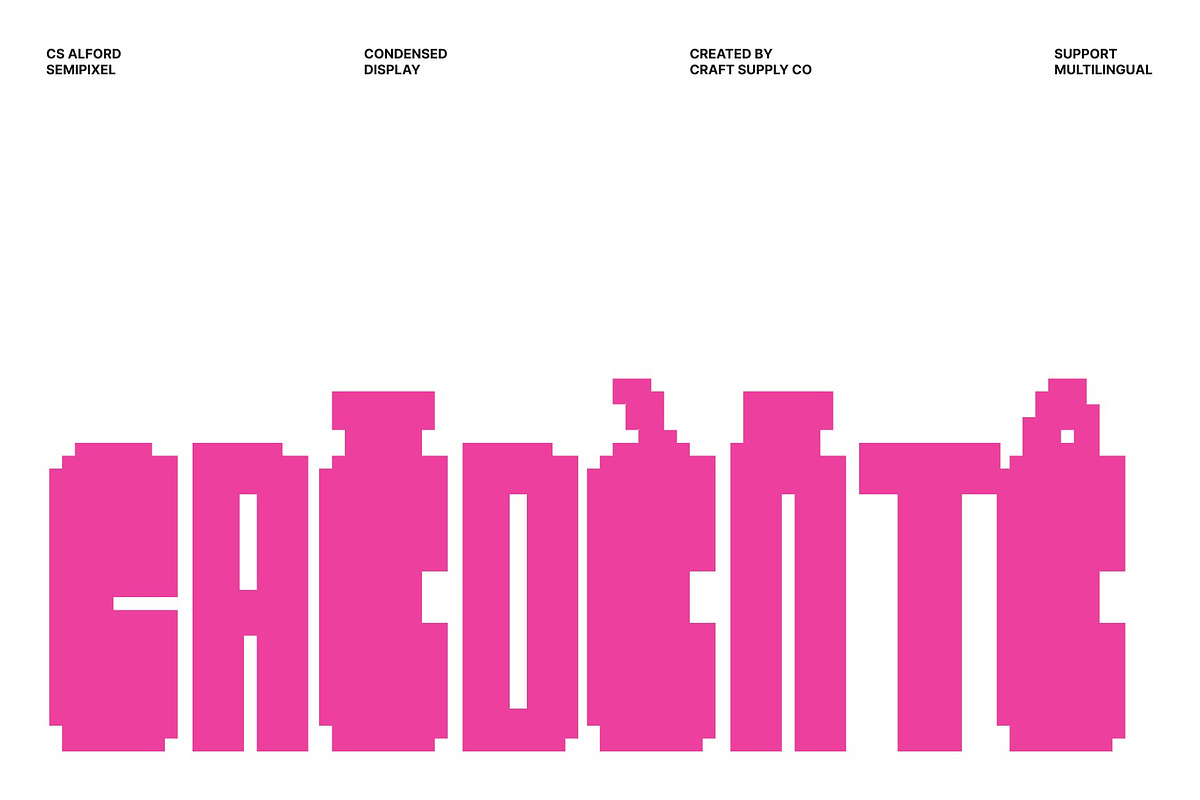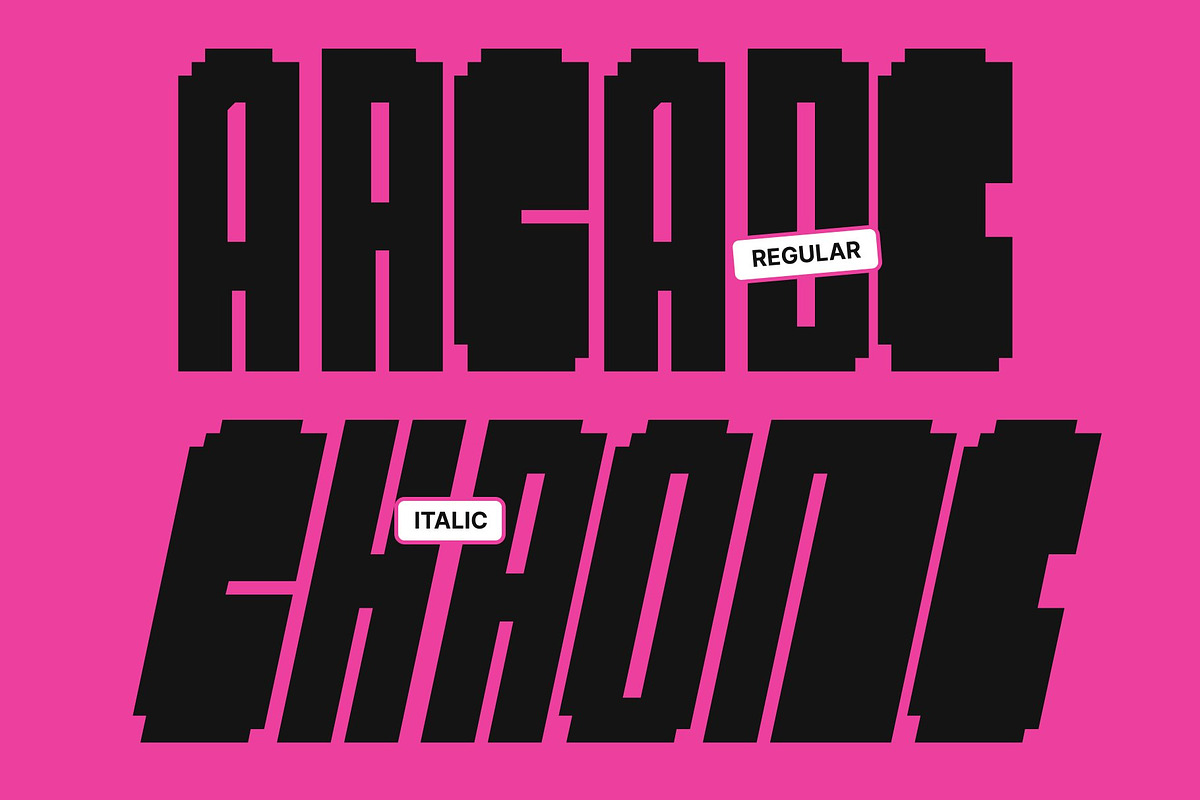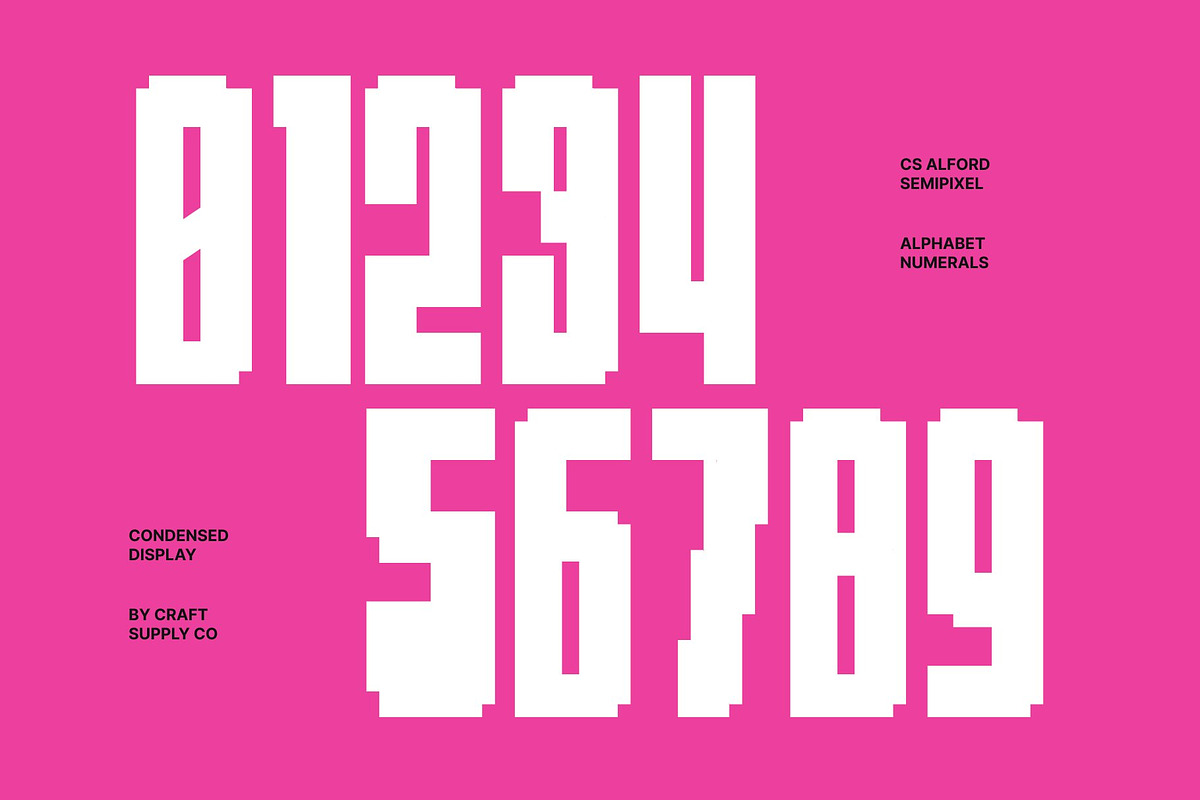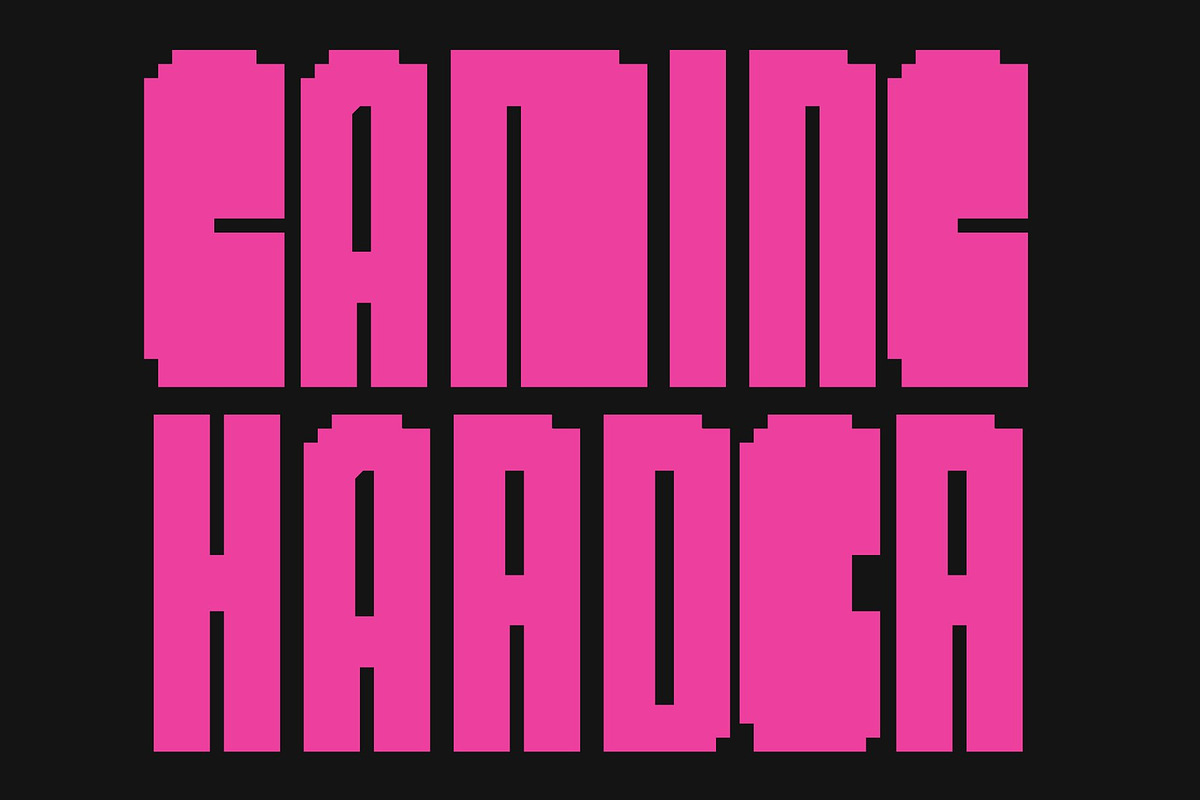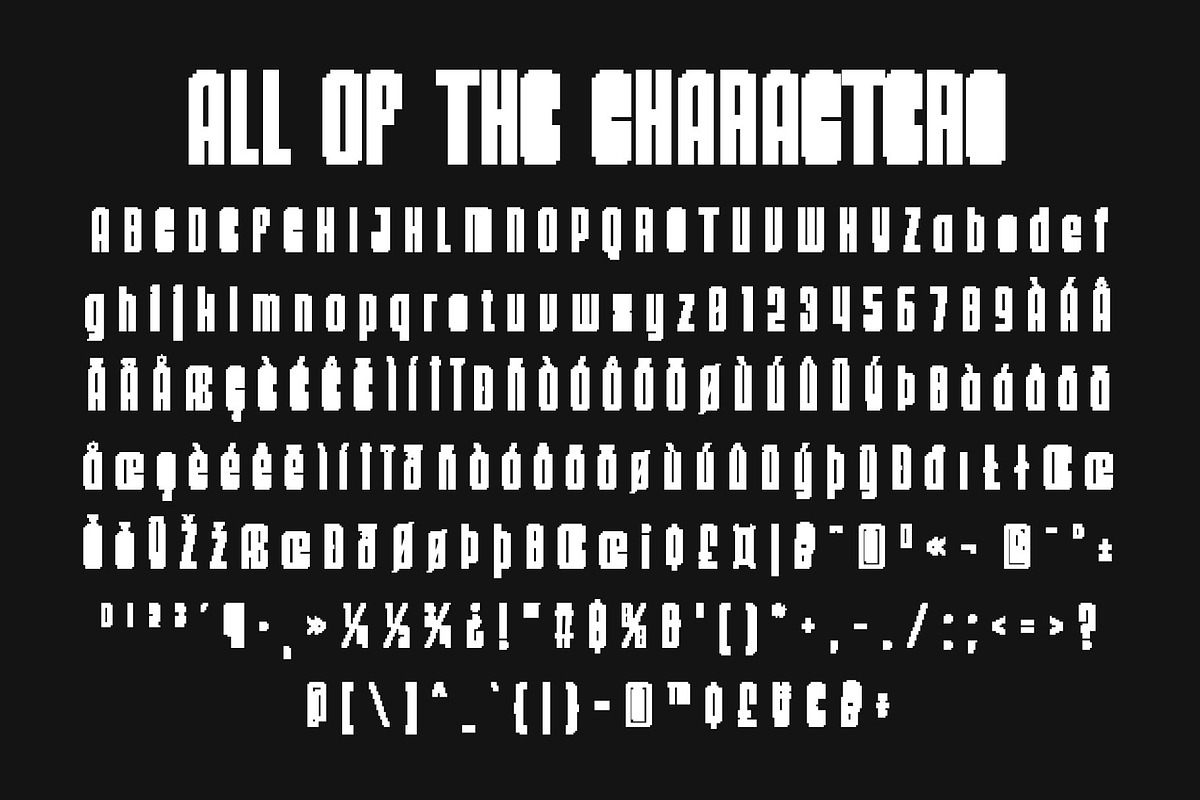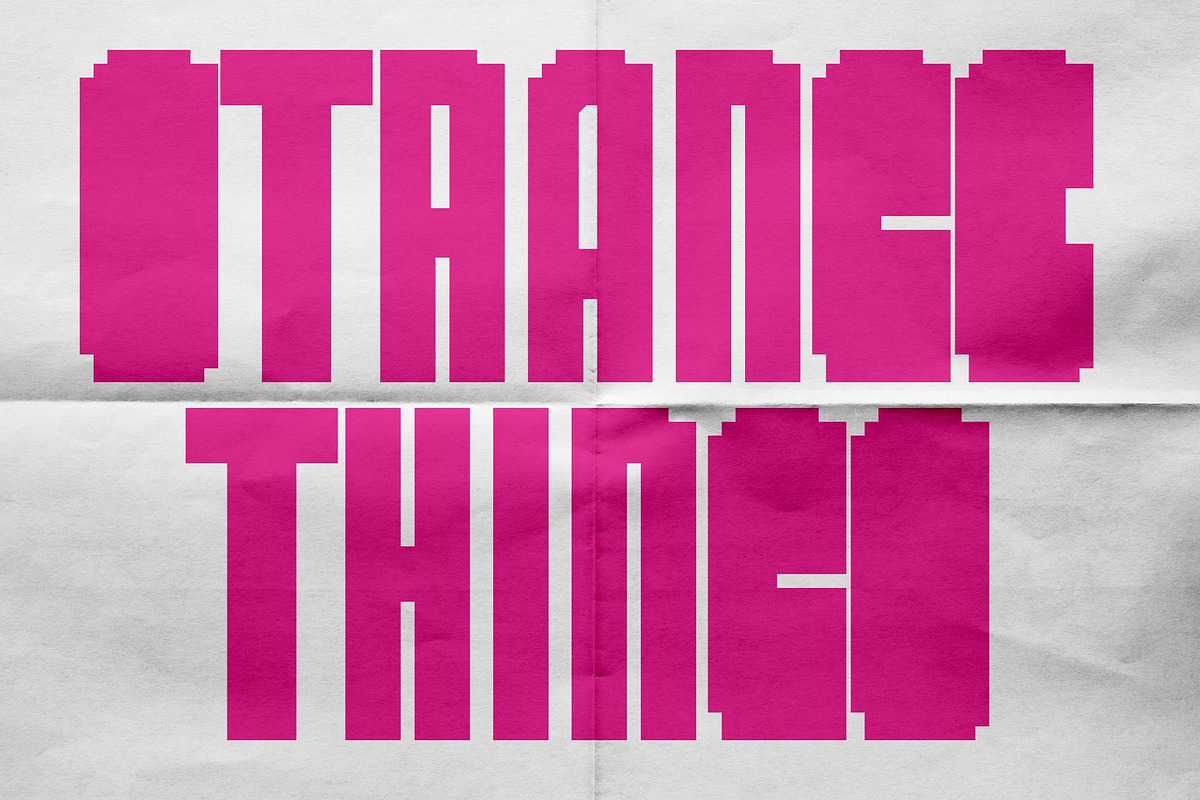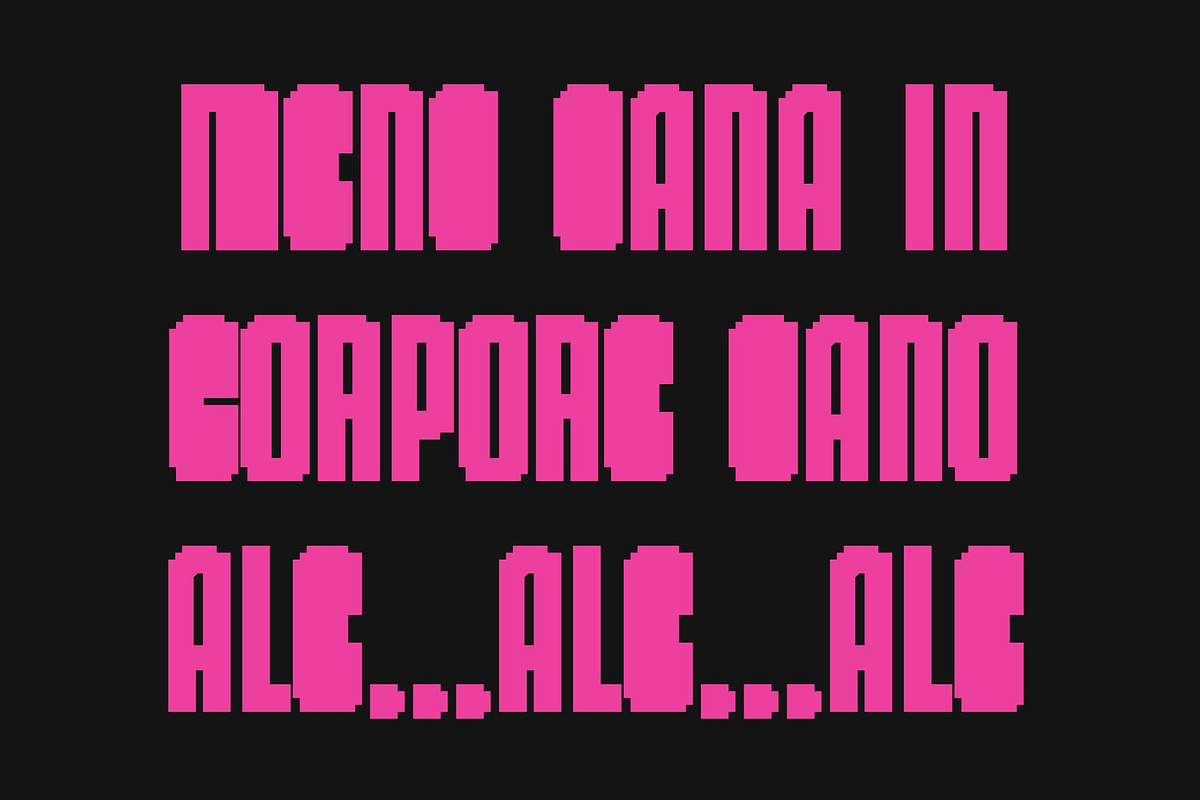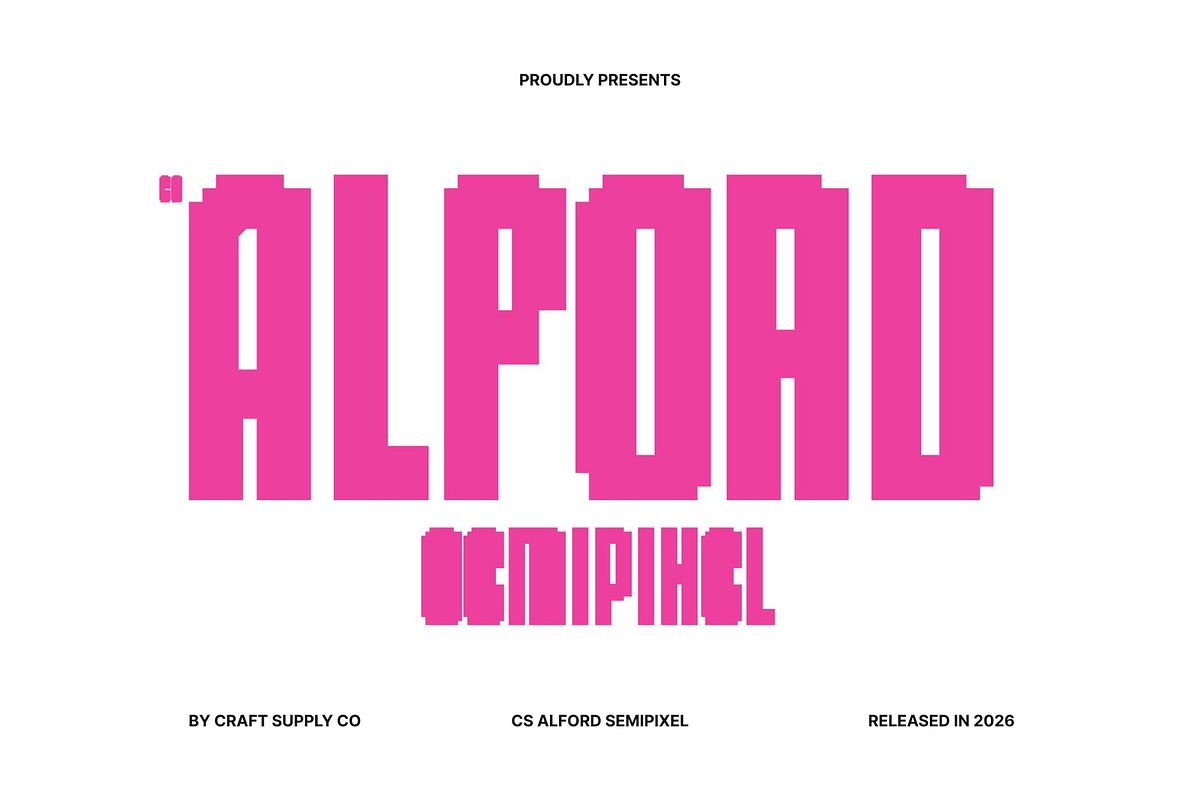
CS Alford Semipixel
CS Alford Semipixel – Bold Condensed Sans Serif Font: Where Compact Strength Meets Smooth Digital Style
Powerful Narrow Forms with Modern Urban Energy This is a bold condensed sans serif font designed to deliver maximum visual impact in tight spaces. Its narrow proportions and strong geometric structure create a commanding and energetic appearance that feels modern, efficient, and highly attention-grabbing. Every character is crafted to maintain clarity while maximizing visual presence, making the font ideal for bold headlines and compact layouts.
Semipixel Style with Smooth Pixel Precision This font offers a smoother and more polished appearance than traditional rigid pixel fonts. The semipixel construction softens the geometry while preserving its retro-digital identity, resulting in a typeface that feels futuristic, sleek, and highly readable.
Retro-Digital Style with Contemporary Impact This font delivers a typographic identity that feels technological, urban, and visually dynamic. Its compact forms and smooth digital styling create a strong visual rhythm ideal for fast-paced and high-energy creative projects.
Perfect for Editorials, Sports Branding, and Apparel This font perfect for urban editorials, editorial layouts, sports branding, posters, apparel graphics, streaming visuals, and futuristic promotional campaigns. Its bold condensed semipixel forms make it ideal for logos, merchandise, headlines, packaging, and visual identities that seek strong readability with modern digital character. With its fusion of compact strength and smooth retro-digital refinement, this font delivers a bold and unforgettable typographic statement.